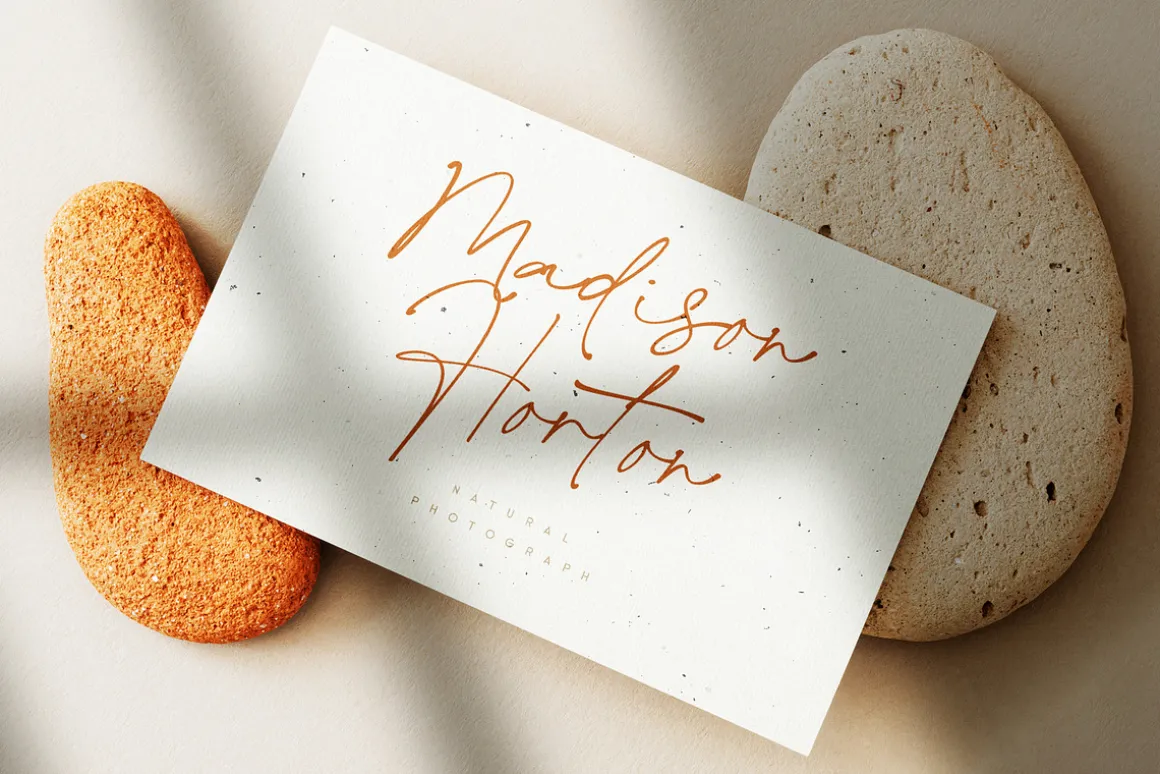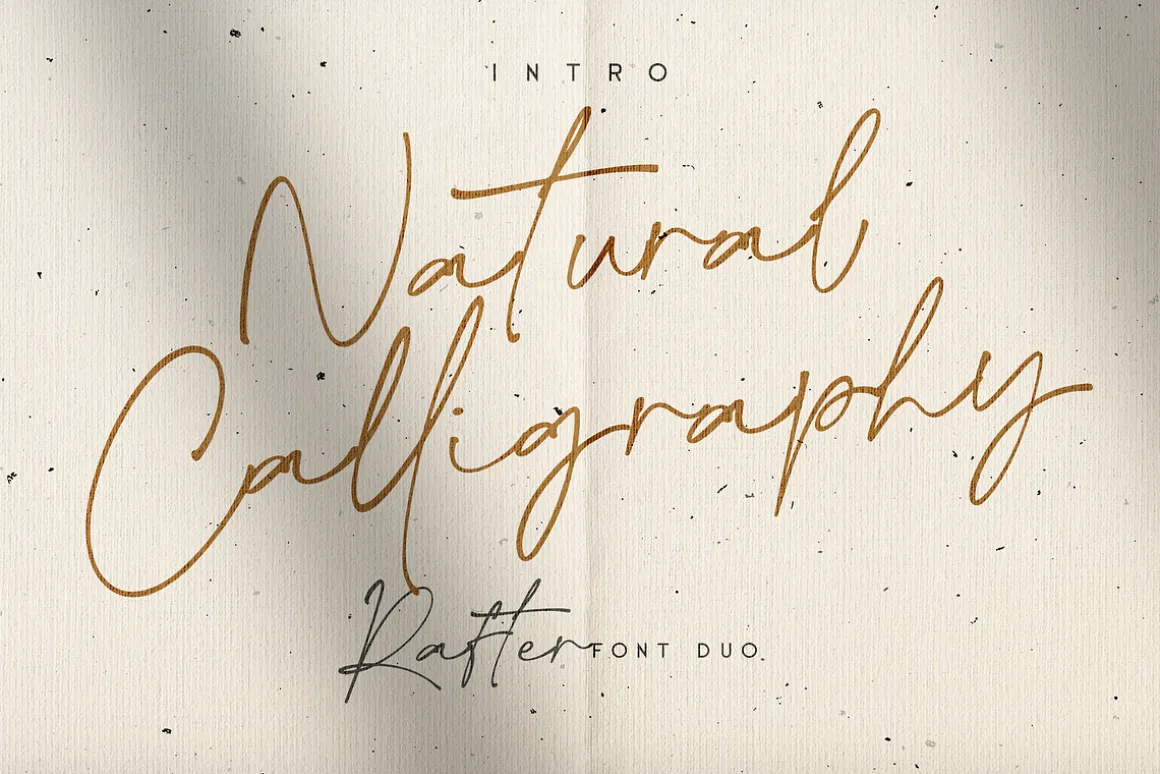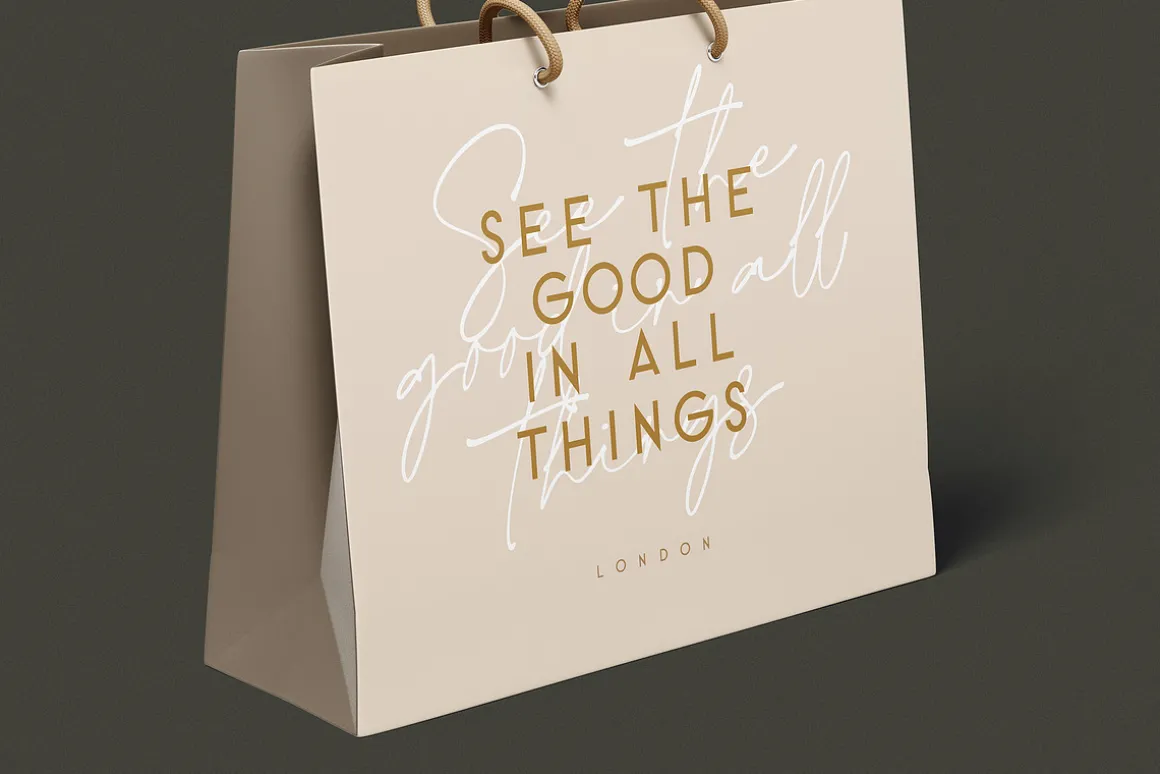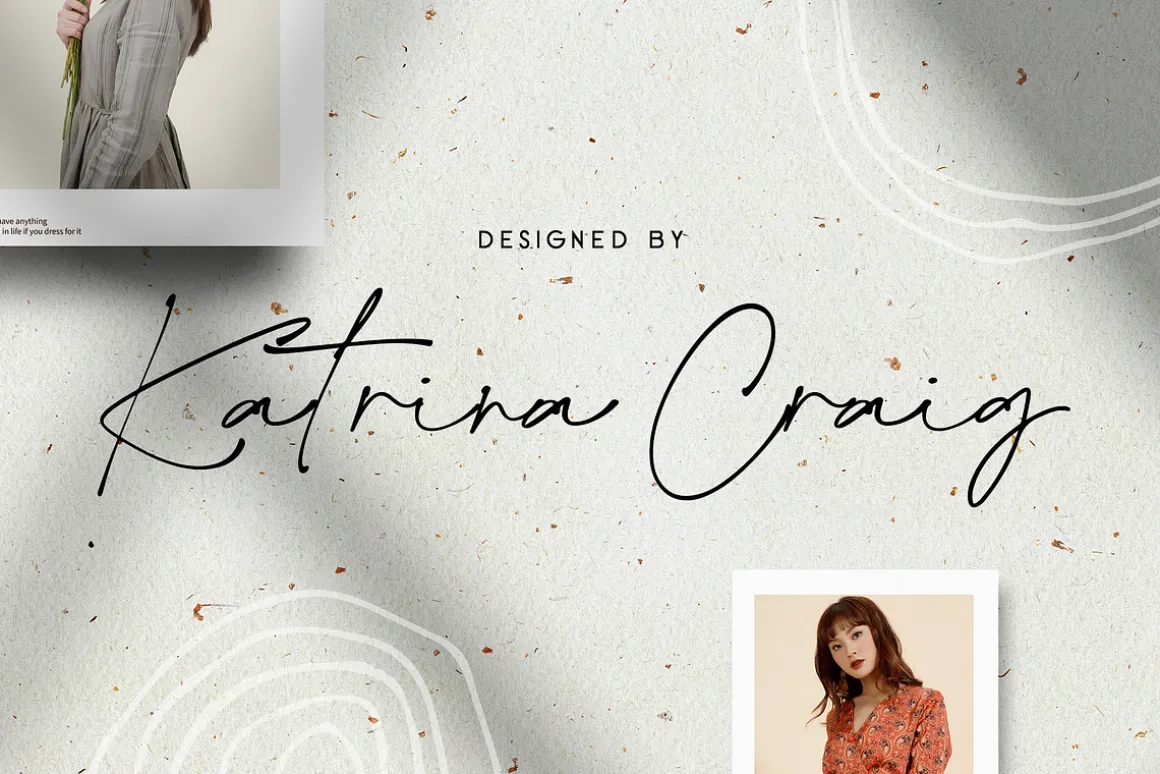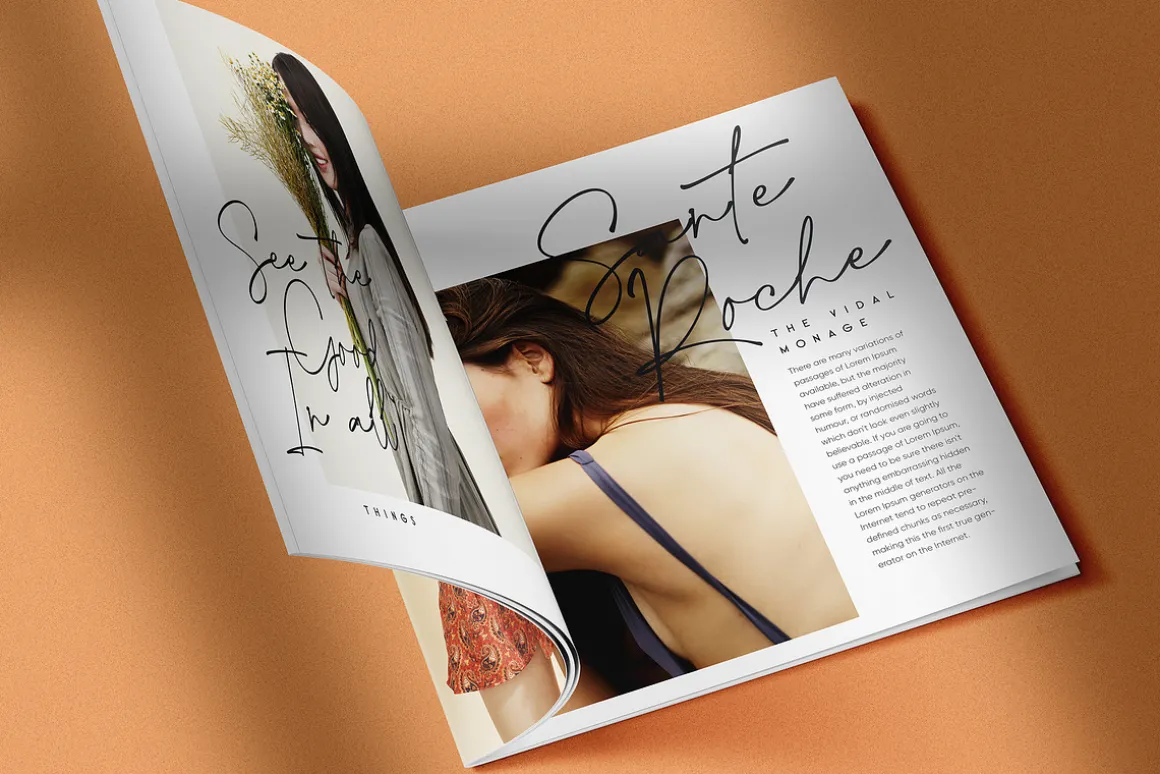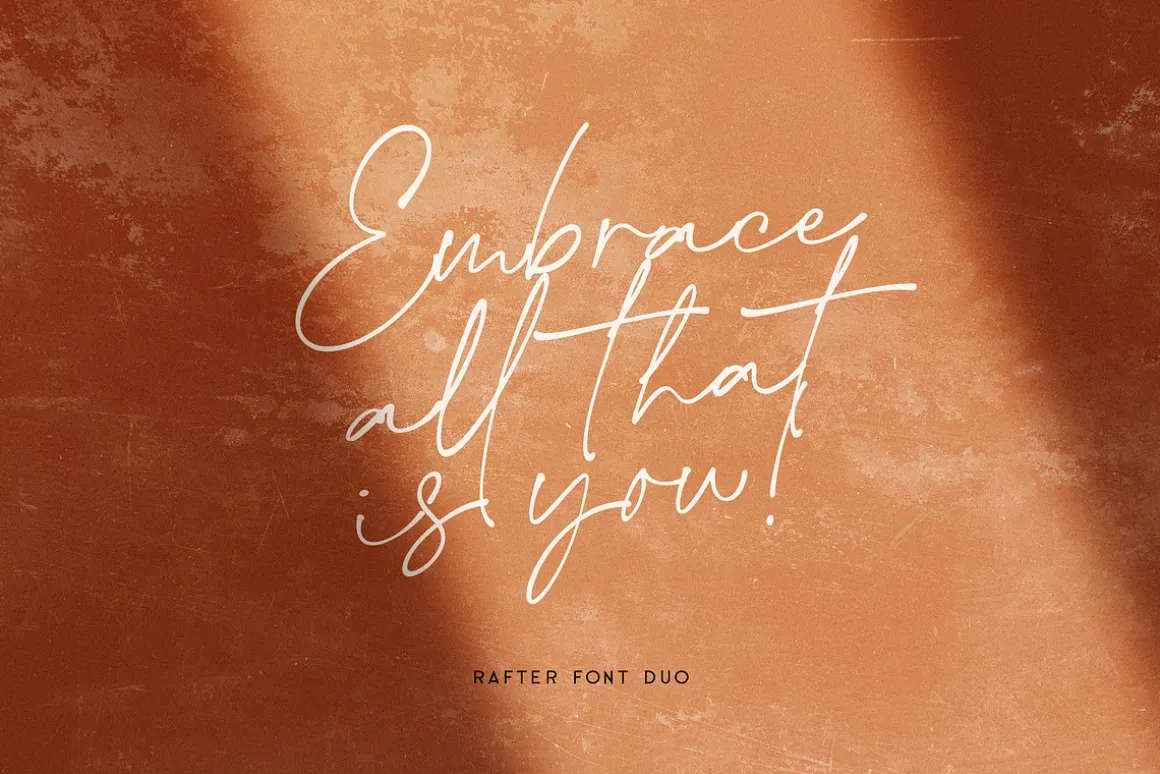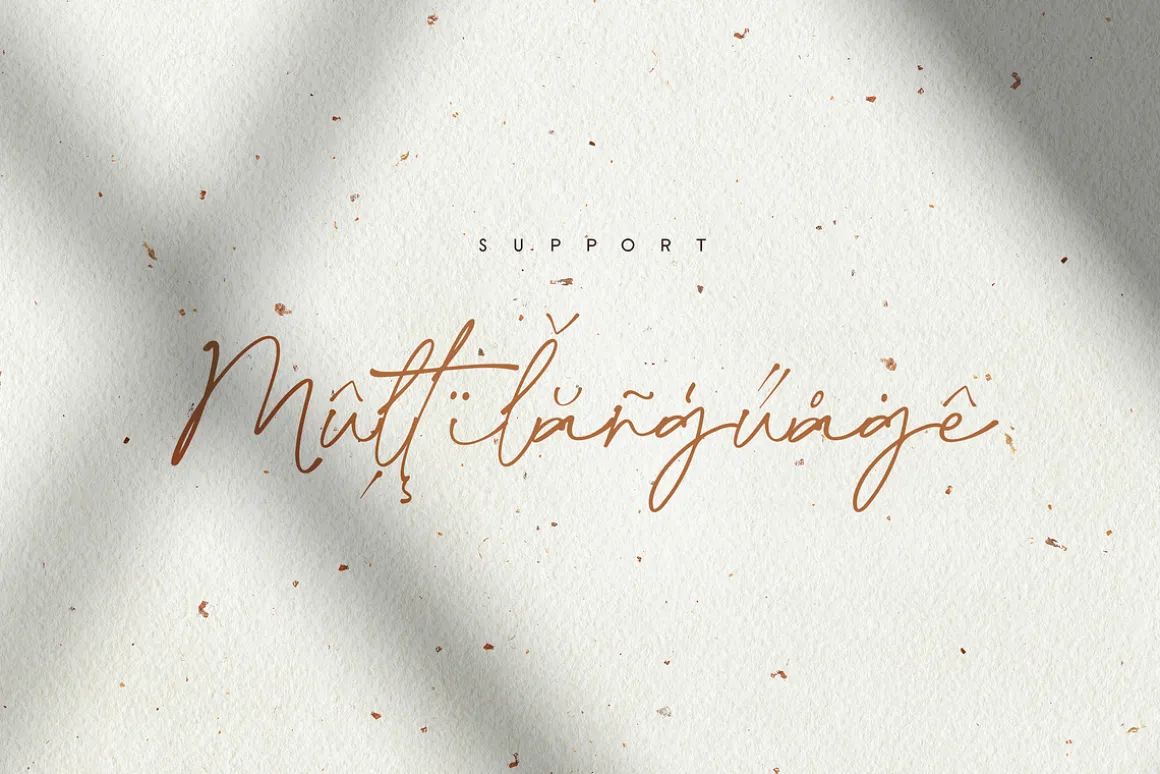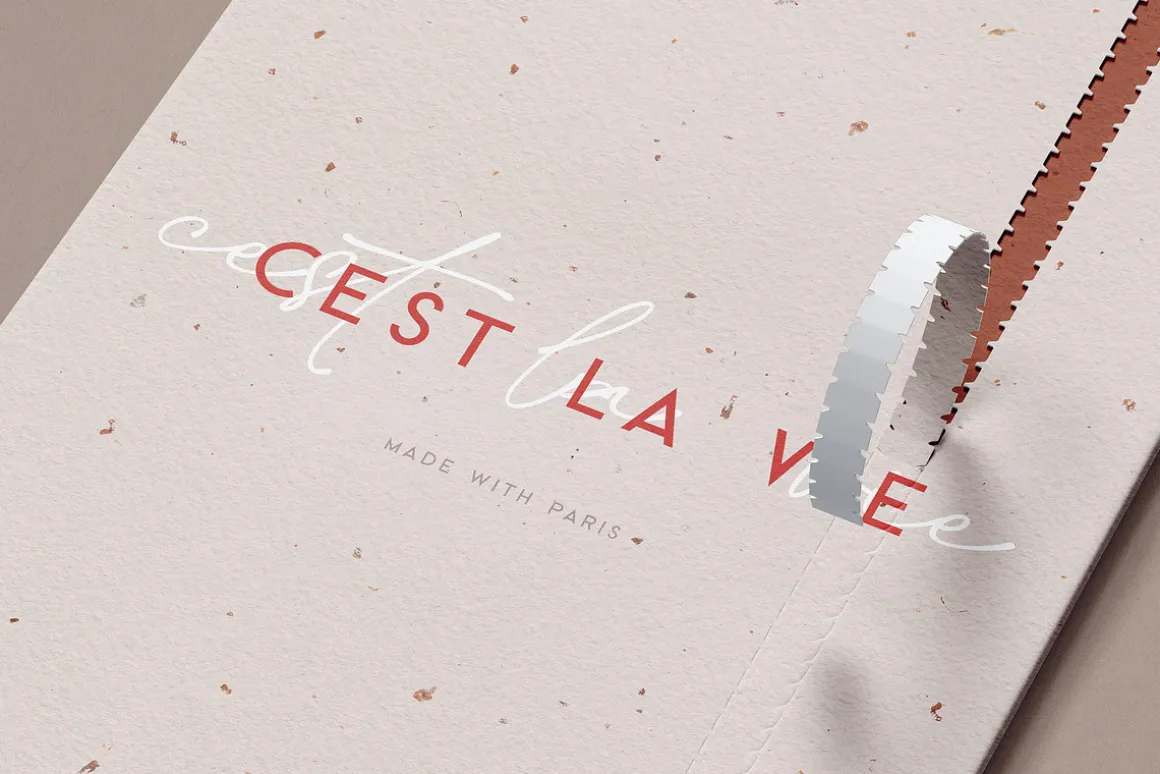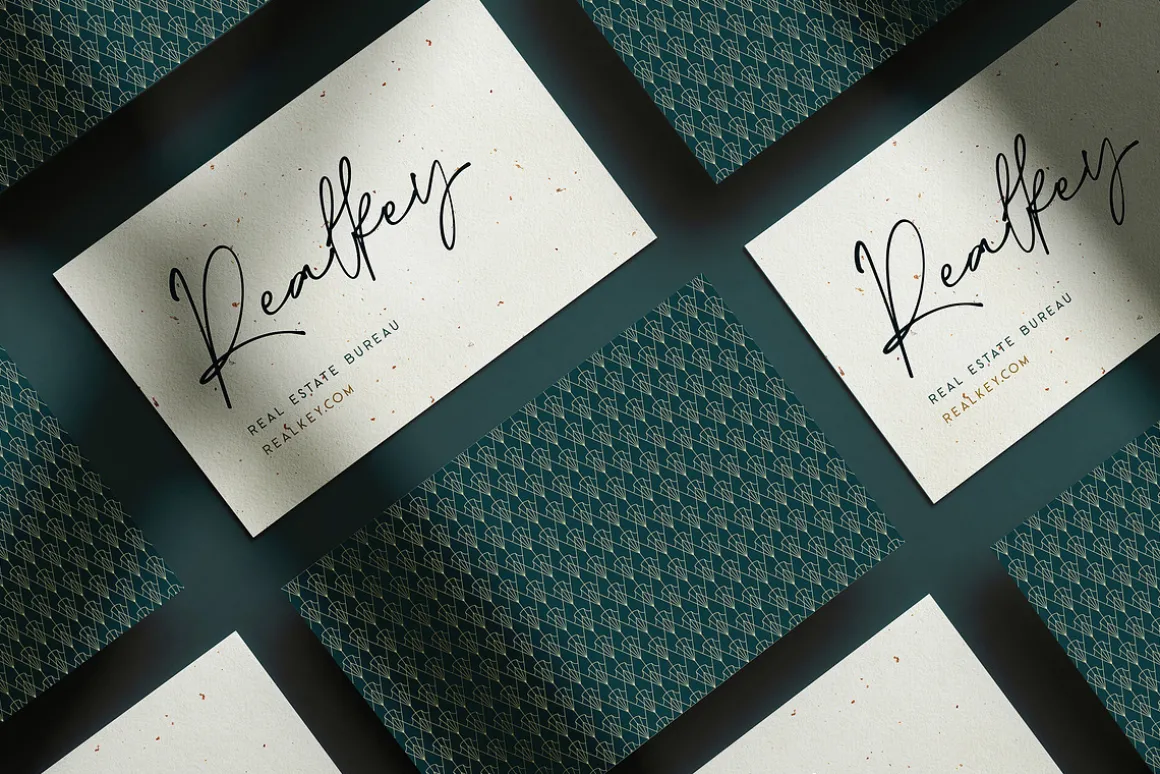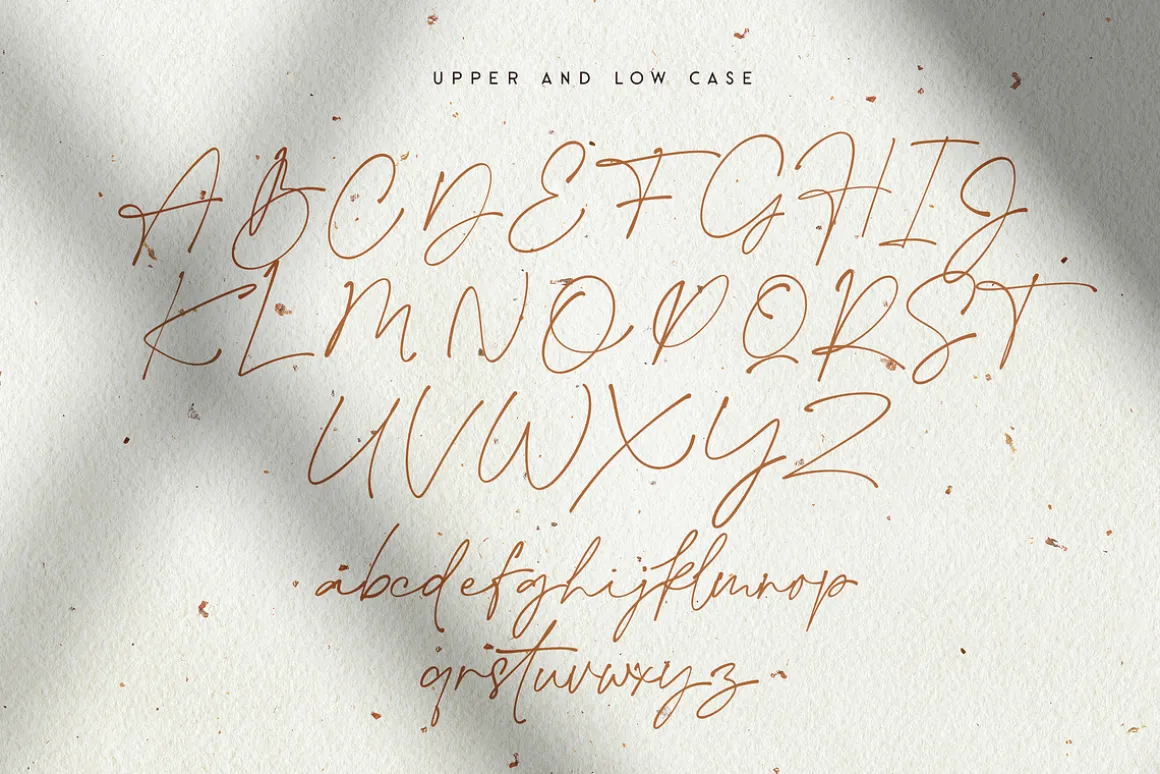
Introducing our new typeface duo, Rafter – a contemporary, display typeface full of character, quirky ligatures, and glyphs to keep your designs fresh.
This is a display font that we recommend using in the following types of work; magazines (titles and layouts), logos and branding, invitations, quotes, blog headers, posters, and advertising.
Language Support: Afrikaans, Albanian, Catalan, Danish, Dutch, English, French, German, Italian Norwegian, Portuguese, Spanish, Swedish and Zulu.
Uppercase and lowercase glyphs
Punctuation
Numbers
Multilingual support
Unique ligatures glyphs